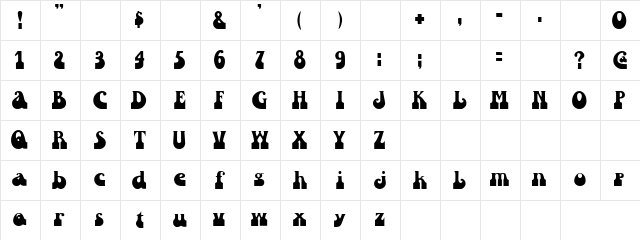
Boom Shakalaka Regular
Design Context for Boom Shakalaka Typeface
Boom Shakalaka is a composed and adaptable typeface that performs quietly and consistently across a wide range of design contexts.